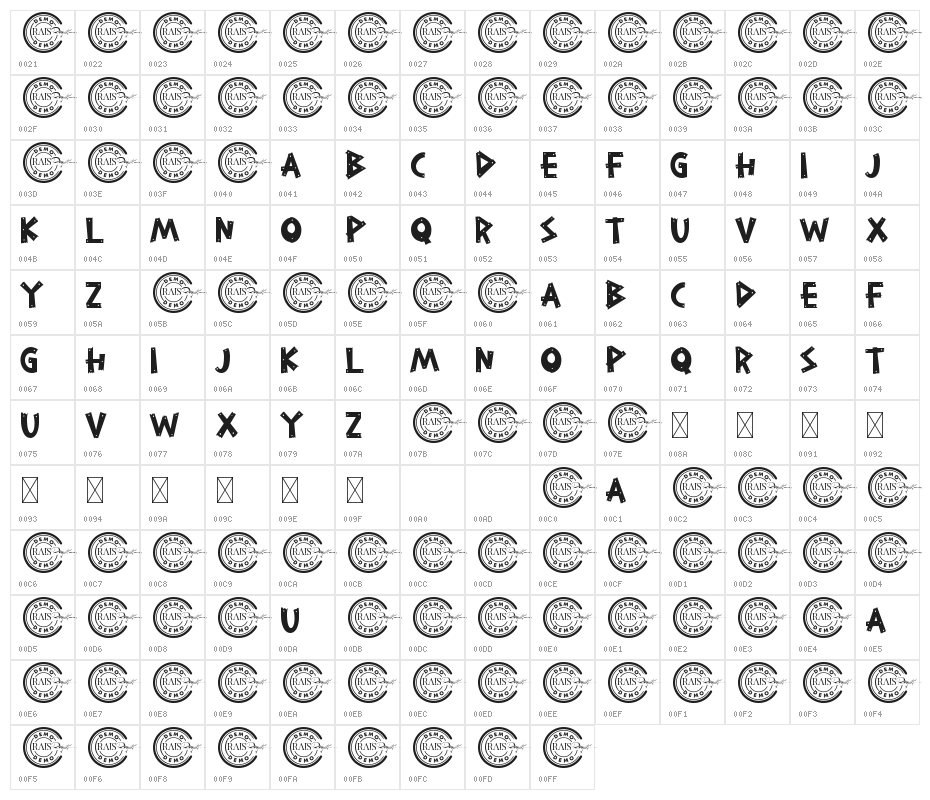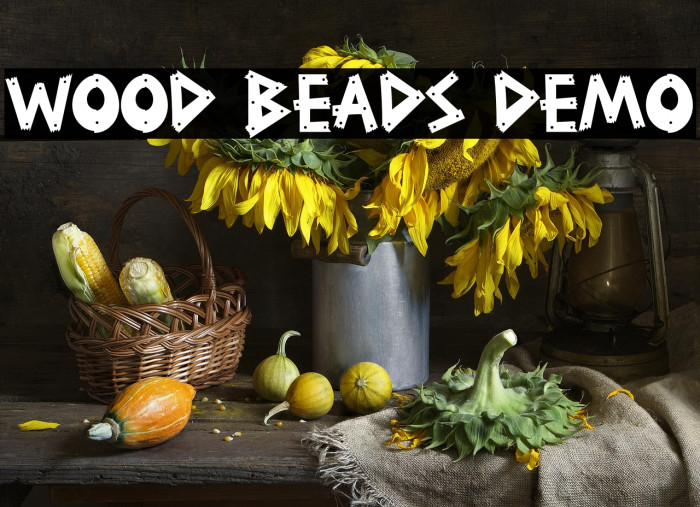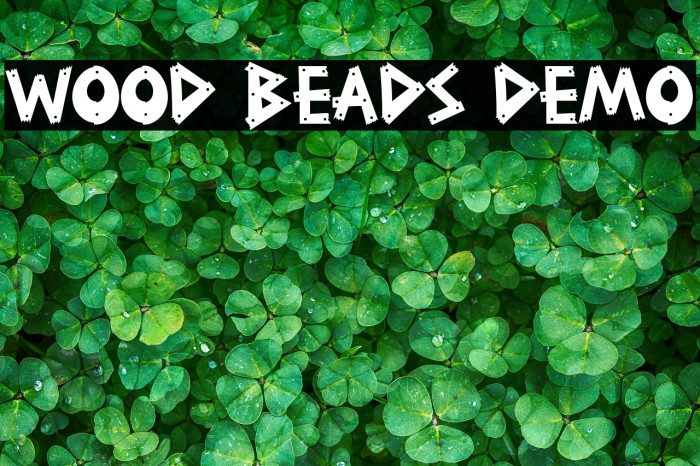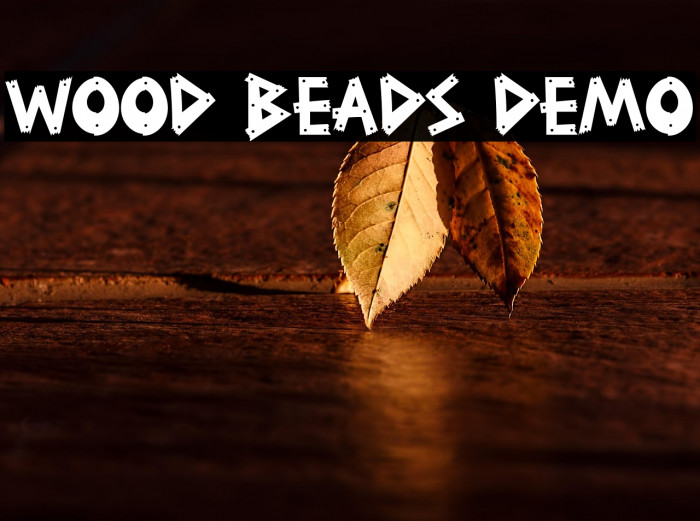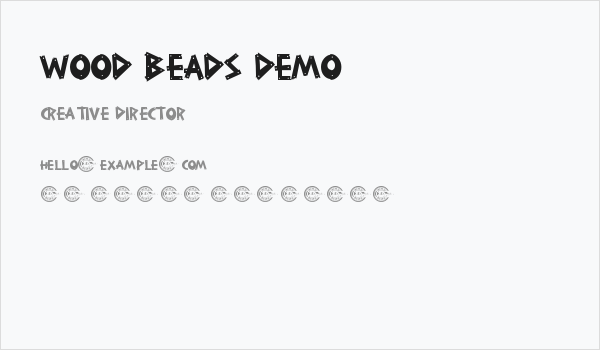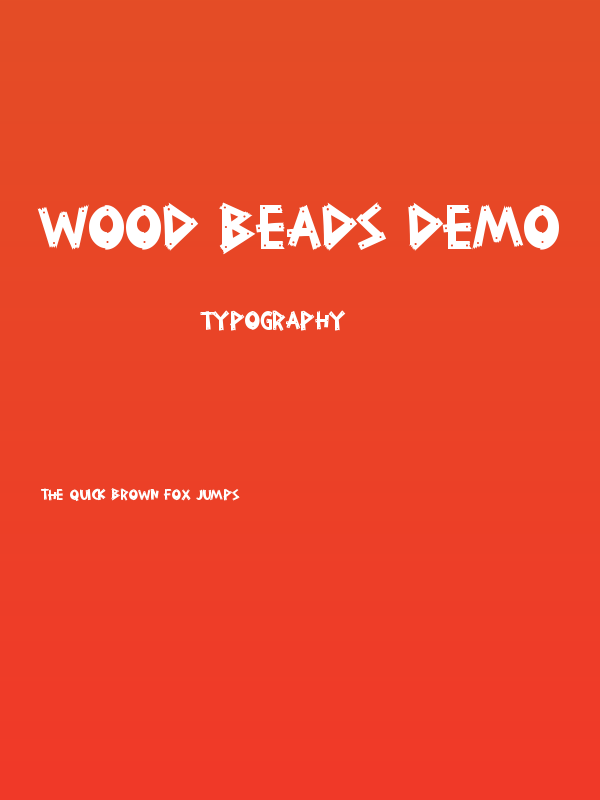
Wood Beads Demo Font
Wood Beads Demo Description
This font features a bold and playful design with a distinct woodcut appearance. The letters are characterized by jagged edges and irregular shapes, giving them a handcrafted, rustic feel. Each character is adorned with small circular cutouts, adding to the decorative and unique style. The font maintains a consistent thickness throughout, with minimal contrast in stroke width. Its quirky and artistic nature makes it stand out, ideal for projects that require a touch of creativity and fun.
| Proposed Projects | Ideal for children's book covers, craft product packaging, playful posters, and artistic branding. |